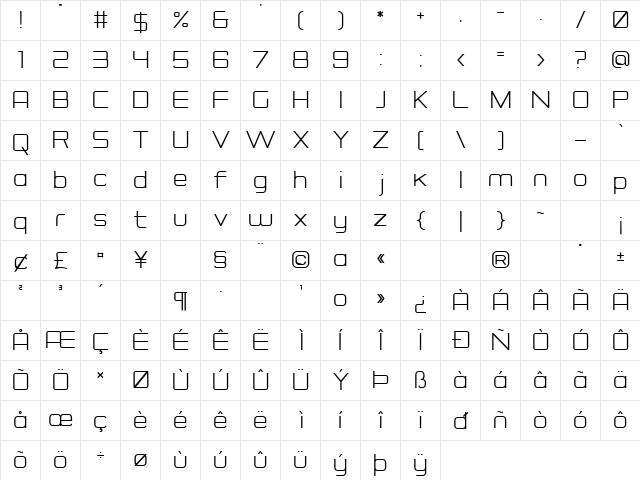
Rogueland Free Regular
| Foundry | Namara Creative Studio |
| Designer | Toni Setiawan | Namara Creative Studio |
Design Context for Rogueland Free Typeface
Rogueland Free is a composed and adaptable typeface that performs quietly and consistently across a wide range of design contexts.